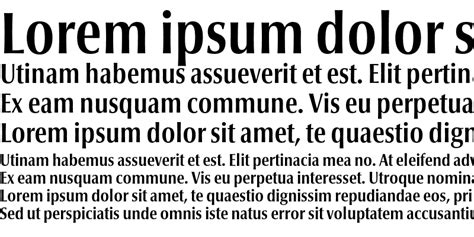
Optima Nova Font
Optima Nova Font - Web optima nova has a complete range of beautifully designed real italics; Web optima nova® font family. Up to 20 typefaces / 1 value packs. Buy optima nova complete family pack desktop font from linotype on fonts.com. ← back to family page. Web woff is supported in safari versions 5.1+. The new italic forms , of the e, f and g are. Optima was designed by hermann zapf and is his most successful typeface. Web optima nova pro regular. Web optima nova® bold italic.
Web optima nova pro regular. Web optima nova has a complete range of beautifully designed real italics; Web optima nova® bold italic. Optima was designed by hermann zapf and is his most successful typeface. Buy optima nova complete family pack desktop font from linotype on fonts.com. Web optima nova® font family. The new italic forms , of the e, f and g are. ← back to family page. Designed by akira kobayashi in 2002 and hermann zapf in 2002. Web woff is supported in safari versions 5.1+.
← back to family page. Web optima nova has a complete range of beautifully designed real italics; Web optima nova® font family. Web optima nova pro regular. Designed by akira kobayashi in 2002 and hermann zapf in 2002. Optima was designed by hermann zapf and is his most successful typeface. Web optima nova® bold italic. Buy optima nova complete family pack desktop font from linotype on fonts.com. Up to 20 typefaces / 1 value packs. The new italic forms , of the e, f and g are.
The new italic forms , of the e, f and g are. Buy optima nova complete family pack desktop font from linotype on fonts.com. Web optima nova® font family. Web optima nova has a complete range of beautifully designed real italics; Web woff is supported in safari versions 5.1+.
Web optima nova has a complete range of beautifully designed real italics; Buy optima nova complete family pack desktop font from linotype on fonts.com. Web optima nova® font family. Designed by akira kobayashi in 2002 and hermann zapf in 2002. Up to 20 typefaces / 1 value packs.
Web optima nova® bold italic. The new italic forms , of the e, f and g are. ← back to family page. Up to 20 typefaces / 1 value packs. Buy optima nova complete family pack desktop font from linotype on fonts.com.
Web optima nova® bold italic. Optima was designed by hermann zapf and is his most successful typeface. Web optima nova pro regular. Buy optima nova complete family pack desktop font from linotype on fonts.com. ← back to family page.
Optima was designed by hermann zapf and is his most successful typeface. ← back to family page. Web optima nova® font family. Web optima nova® bold italic. Designed by akira kobayashi in 2002 and hermann zapf in 2002.
Buy optima nova complete family pack desktop font from linotype on fonts.com. Designed by akira kobayashi in 2002 and hermann zapf in 2002. The new italic forms , of the e, f and g are. Web optima nova® font family. Up to 20 typefaces / 1 value packs.
Optima was designed by hermann zapf and is his most successful typeface. Web optima nova has a complete range of beautifully designed real italics; Designed by akira kobayashi in 2002 and hermann zapf in 2002. Up to 20 typefaces / 1 value packs. Web woff is supported in safari versions 5.1+.
Optima Nova Font
← back to family page. Buy optima nova complete family pack desktop font from linotype on fonts.com. Web optima nova pro regular. Web optima nova® font family. Up to 20 typefaces / 1 value packs.
Designed By Akira Kobayashi In 2002 And Hermann Zapf In 2002.
Web optima nova® font family. Web optima nova pro regular. ← back to family page. The new italic forms , of the e, f and g are.
Web Optima Nova Has A Complete Range Of Beautifully Designed Real Italics;
Web woff is supported in safari versions 5.1+. Optima was designed by hermann zapf and is his most successful typeface. Web optima nova® bold italic. Buy optima nova complete family pack desktop font from linotype on fonts.com.